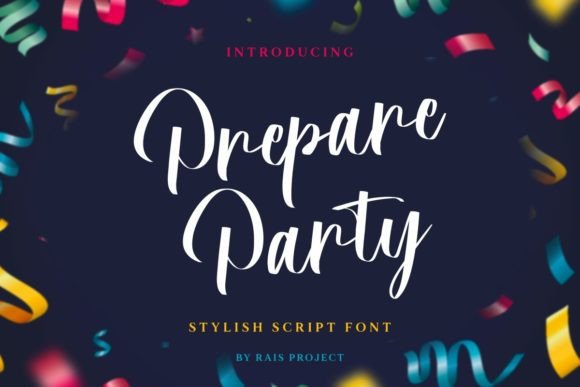
Welcome to the whimsical world of Prepare Party Font, a script font that dances off the page with its playful charm and calligraphy flair. Each character in this font is like a little party waiting to ignite your imagination and transform your projects into captivating works of art.
Step into a world where your words become vibrant invitations, greeting cards that sing with joy, and posters that burst with energy. Prepare Party Font holds the power to bring life to your branding, adding a touch of playfulness and creativity to your logo and making it stand out from the crowd.
With Prepare Party Font as your creative companion, you can create invitations that capture the excitement of a child's birthday party, invitations with twirling ribbons and balloons or elegant calligraphy that exudes sophistication and style. The versatility of this font extends beyond invitations, seamlessly adapting to headers, labels, and product packaging. Its playful spirit shines through, adding a touch of delight to any project it graces.
Imagine your words dancing across a poster, each letter a tiny celebration waiting to be discovered. Prepare Party Font brings a festive touch to screen printing, adding a dash of whimsy to t-shirts, mugs, and tote bags. Whether you're creating designs for a birthday bash, a baby shower, or a product launch, this font is your go-to choice for injecting a burst of energy and enchantment.
Prepare Party Font is a font that speaks to the child within us, evoking memories of laughter and joyful moments. Its playful nature makes it perfect for children's books, bringing stories to life with characters that seem to leap off the page. It's a font that captures the magic of childhood, inviting readers on an adventure with every turn of the page.